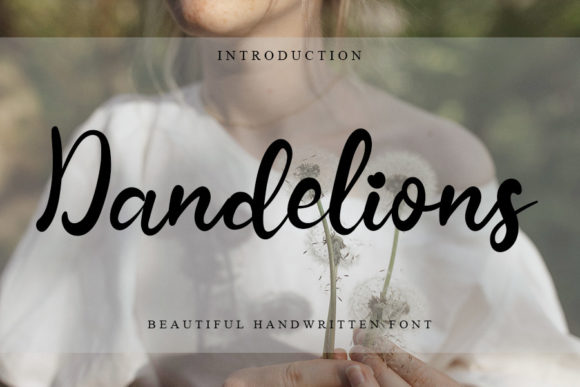
Welcome to the world of Dandelions Font, where beauty and enchantment intertwine. Immerse yourself in the captivating curves and graceful strokes of this script font, inspired by the iconic tale of Beauty and the Beast.
Crafted by the renowned Inermedia Studio, Dandelions Font is not just a typeface; it's a gateway to a world of imagination and enchantment. Its delicate and elegant characters dance across the page, creating a mesmerizing visual symphony. The well-balanced design ensures seamless integration with a wide range of creative projects, from whimsical invitations to enchanting logos.
Unleash your inner artist and let Dandelions Font breathe life into your designs. Its ethereal beauty will transform your words into captivating masterpieces, captivating the hearts of your audience. Experience the magic of Dandelions Font today and elevate your creativity to new heights.